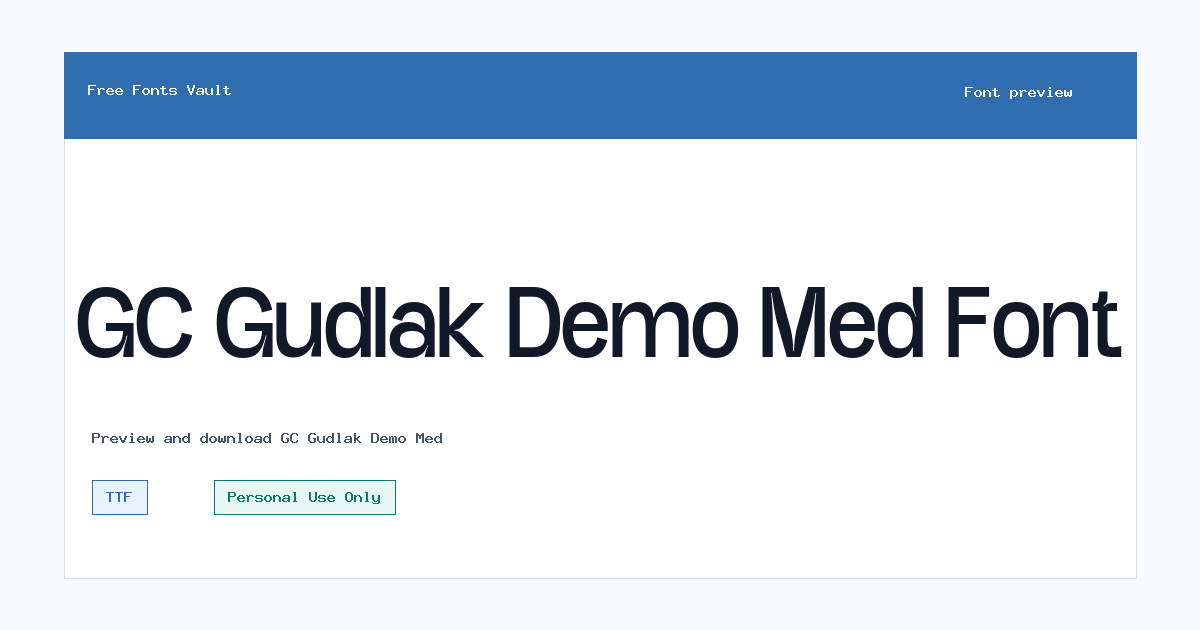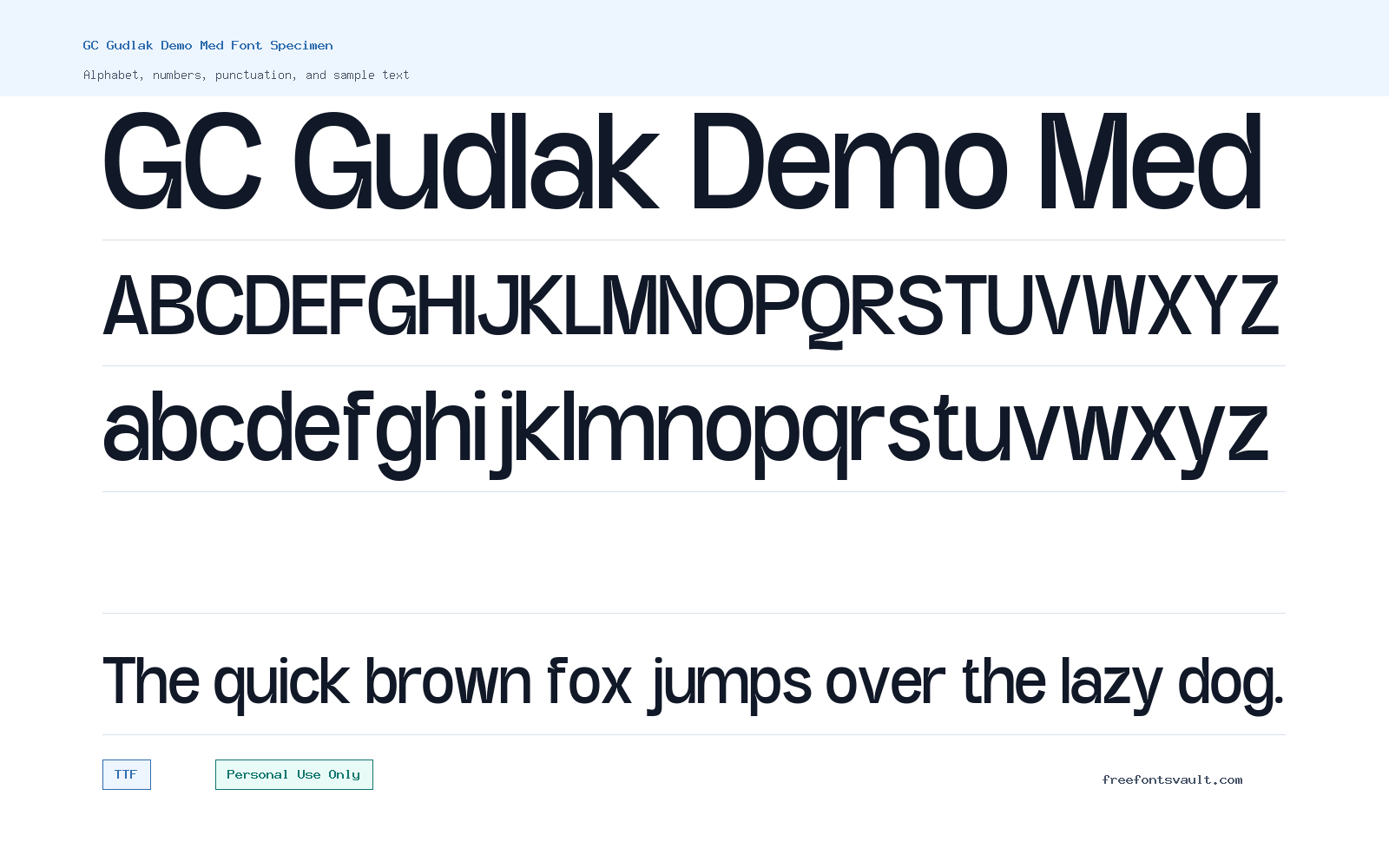
GC Gudlak Demo Med
- Designer Hanif Dwi Sulistyo of Glyphonic
GC Gudlak Demo Med is a medium-weight sans serif demo font with a clean, steady look for short text, display previews, and personal design experiments.
About GC Gudlak Demo Med
GC Gudlak Demo Med is part of the GC Gudlak Sans Serif Font Family and is credited to Hanif Dwi Sulistyo of Glyphonic. The file offered for preview is a TrueType font in a medium weight, listed at 500, with a normal style. That makes it useful when you want something stronger than a light or regular cut but not as heavy as a bold headline face.
- Medium 500 weight for clear short-text display and balanced emphasis.
- Personal poster drafts, social media mockups, title treatments, and sample branding layouts.
What weight is GC Gudlak Demo Med?
The listed font weight is 500, which is commonly treated as a medium weight.
Who designed GC Gudlak Demo Med?
The font is credited to Hanif Dwi Sulistyo of Glyphonic.